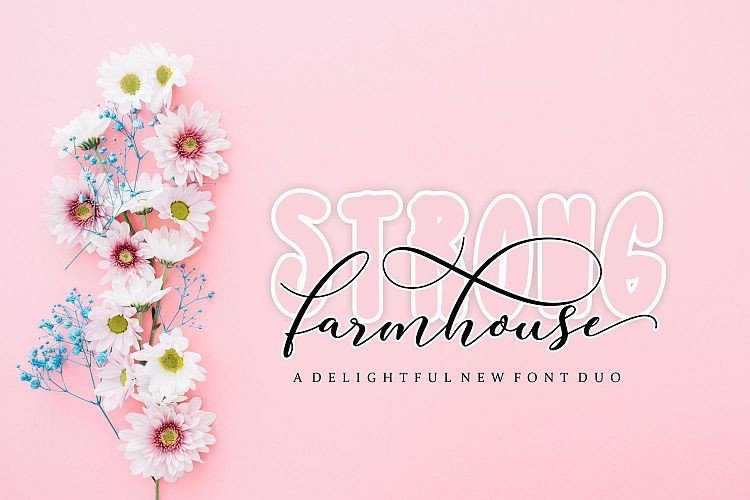
Strong Farmhouse Font Duo
Hello friend. A delightful new font duo. This versatile font can be used for wordmark logos, mastheads, pull quotes & monograms showing both feminine and masculine qualities. Introducing Strong Farmhouse Font. Strong Farmhouse Font Duo is a beautiful, smooth handwritten duo. It includes an elegant script version and a striking sans version. Both styles can be combined perfectly but are also amazing as strong stand-alones.